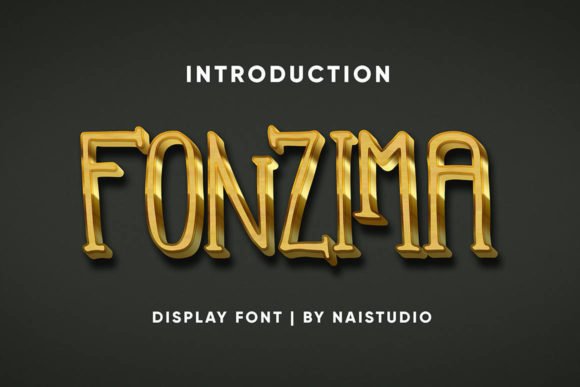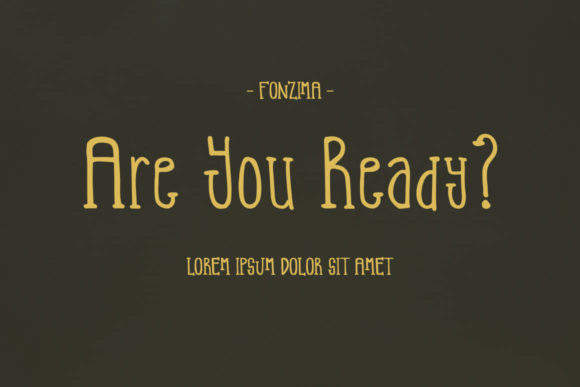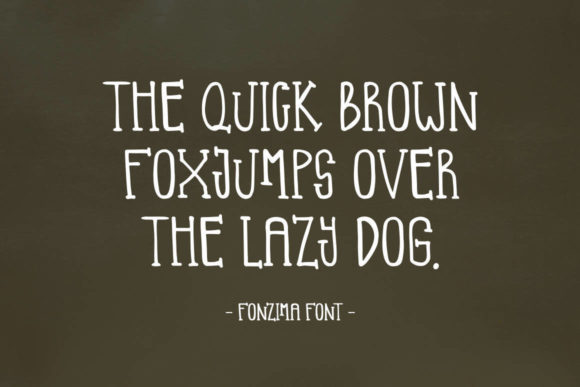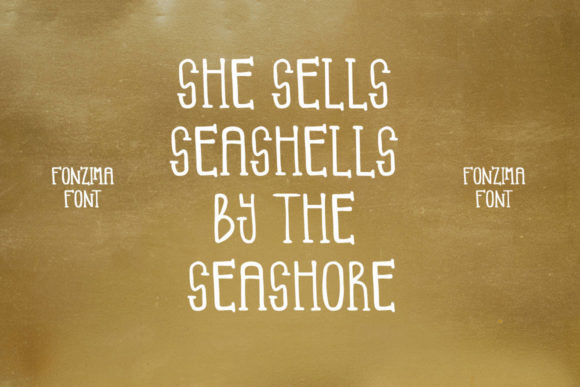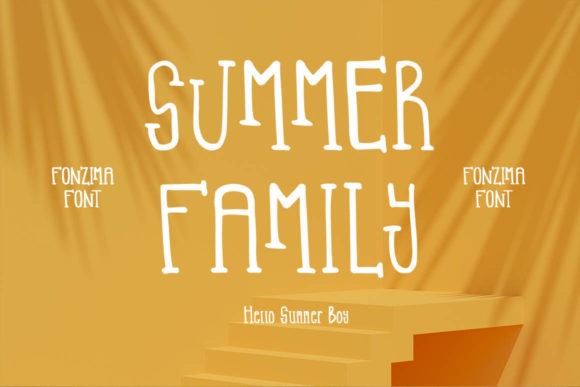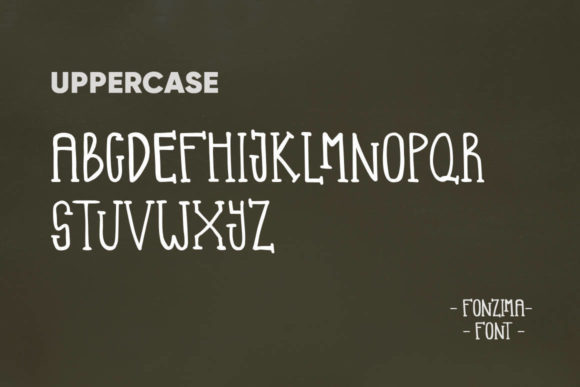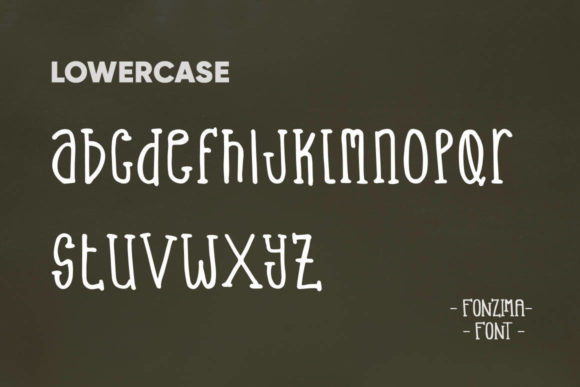
Enter the Fonzima Font, a simple yet stylish display font that’s sure to elevate your creative ideas. This neat, lettered font is perfect for making your projects stand out, whether you’re a designer, artist, or just someone who loves to express themselves. With the Fonzima Font, you can add a touch of sophistication and elegance to your work, making it truly unforgettable.
Whether you’re working on a new logo, poster, or social media campaign, the Fonzima Font is a valuable addition to your design arsenal. Its versatility and classic charm make it a must-have for any designer looking to take their work to the next level.
Fonzima Font Key Features
- Unique Characteristics: The font features a distinctive, hand-drawn style with subtle flair and texture, giving it a unique and eye-catching appearance.
- Kerning and Ligatures: The font includes advanced kerning and ligature pairs, ensuring that text sets are visually appealing and easy to read, even at small font sizes.
Fonzima Font Review
I’ve had the chance to work with the Fonzima font, and I must say it’s a unique addition to any design project. ✨ The font’s bold and playful personality shines through in its many styles and weights, making it perfect for projects that need a touch of whimsy.
Here are some of the things I love about Fonzima:
- ✨ The wide range of styles and weights offers endless design possibilities.
- ✨ The font is highly legible, even at small sizes, making it perfect for body text.
- ✨ The font’s bold and playful personality adds a touch of fun to any design project.
However, there are some limitations to keep in mind:
- ⚠️ The font may not be suitable for projects that require a more formal or professional tone.
- ⚠️ The font’s many styles and weights can make it difficult to choose the perfect one for a project.
Overall, I think Fonzima is a great addition to any design library. While it may not be perfect for every project, it’s a versatile and fun font that’s sure to add some excitement to your designs.
For best results, pair Fonzima Font with a clean and minimalistic design. Experiment with different font sizes and styles to create visual interest.
Use Fonzima Font for headings and titles to add a touch of sophistication. For body text, consider pairing it with a more readable font.
Fonzima Font is ideal for:
- Marketing materials and presentations
- Editorial and creative content
Alternatives to Fonzima Font
Fonzima Font is a popular font used by designers, but it may not be suitable for every project. Here are a few alternatives to consider:
Great Vibes is a modern, elegant script font that is perfect for creative projects, such as invitations, wedding designs, and branding materials. It is more cursive and less blocky than Fonzima Font, making it ideal for adding a touch of sophistication to your designs.
Comparison: Great Vibes is more refined and has a more polished look compared to Fonzima Font. It is also more suitable for projects that require a high level of elegance and sophistication.
Alex Brush is a beautiful, handwritten font that is perfect for projects that require a personal and touchy-feely feel. It is great for creating a sense of warmth and approachability, making it ideal for branding materials, signage, and marketing materials.